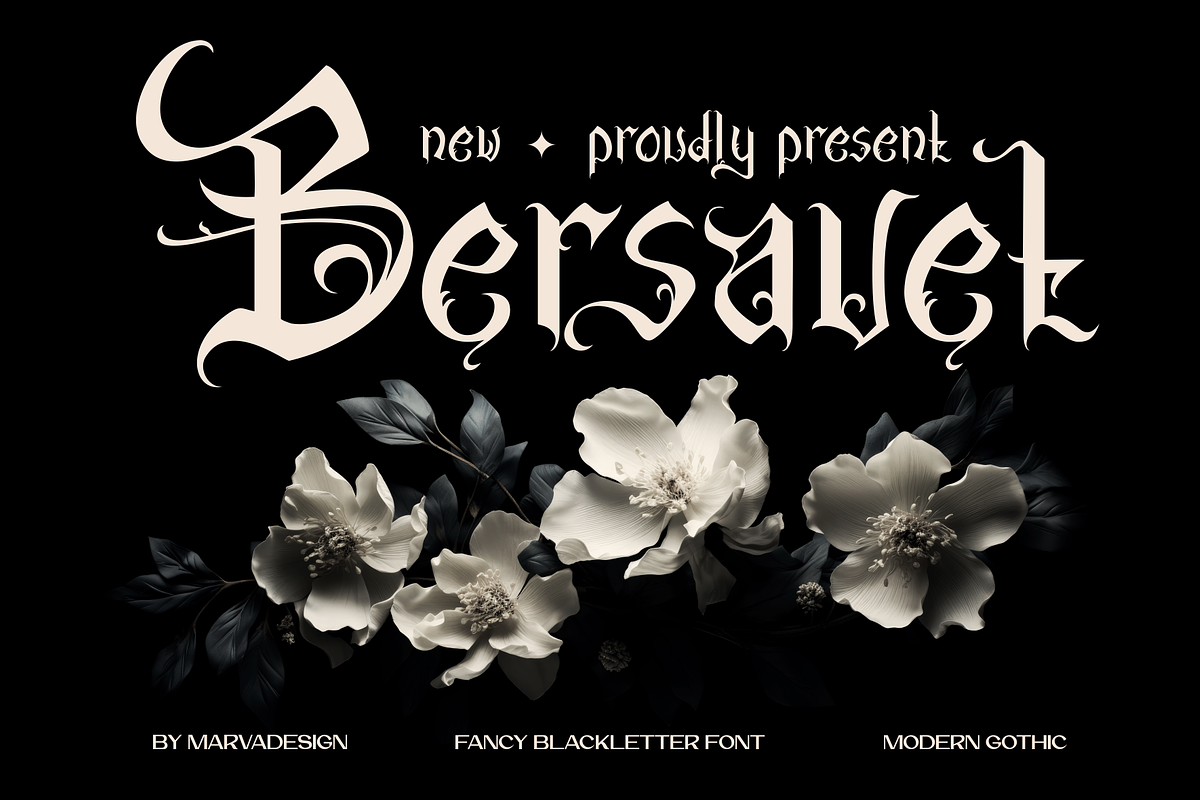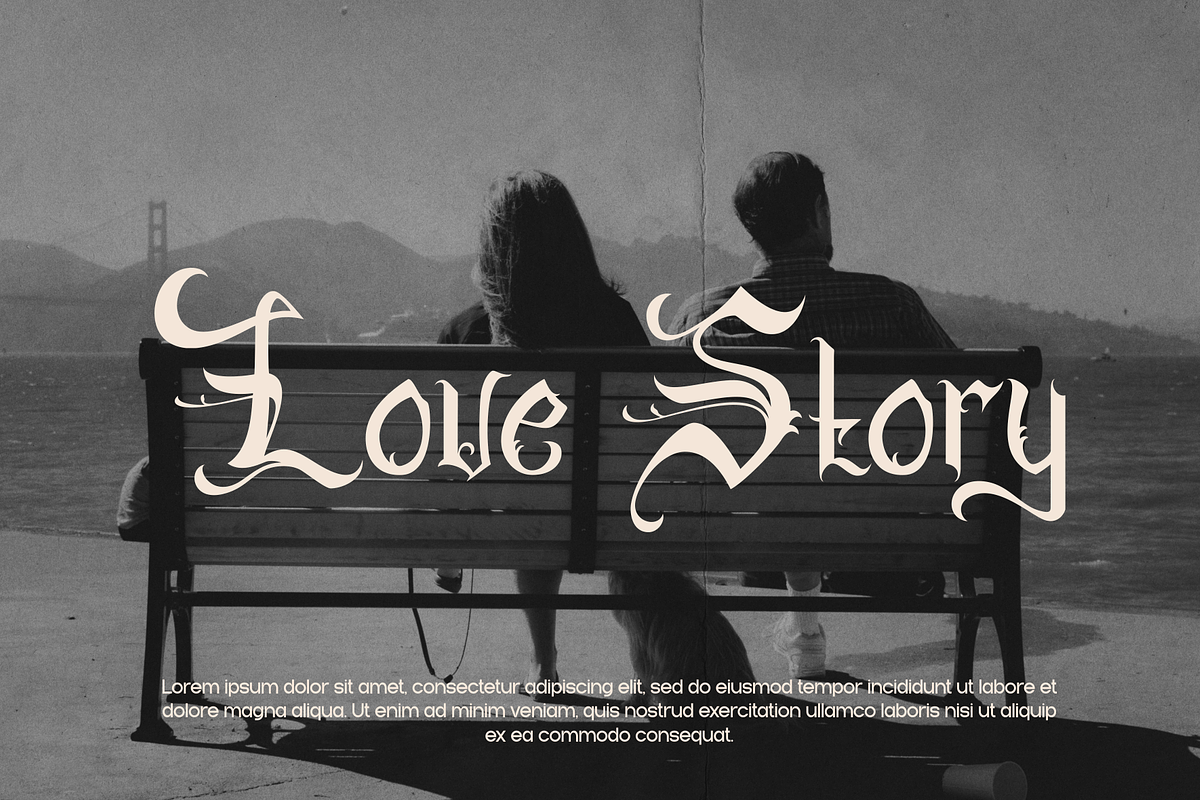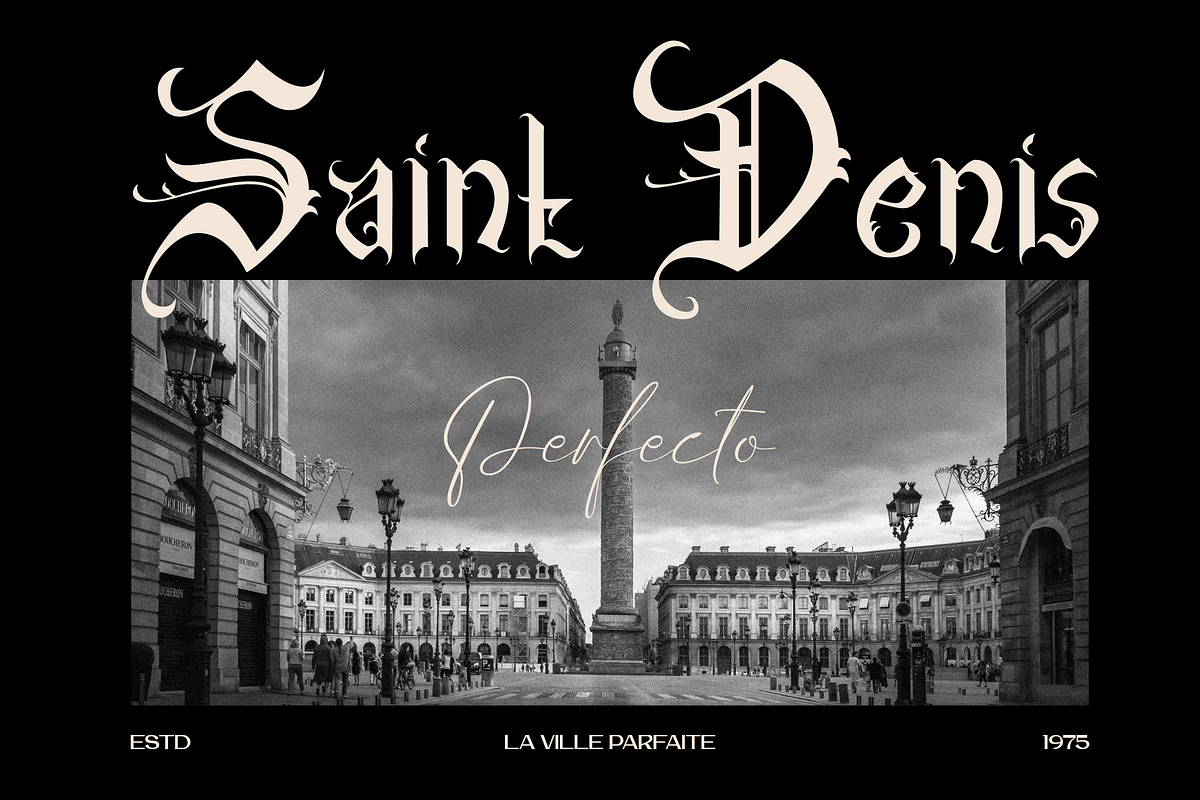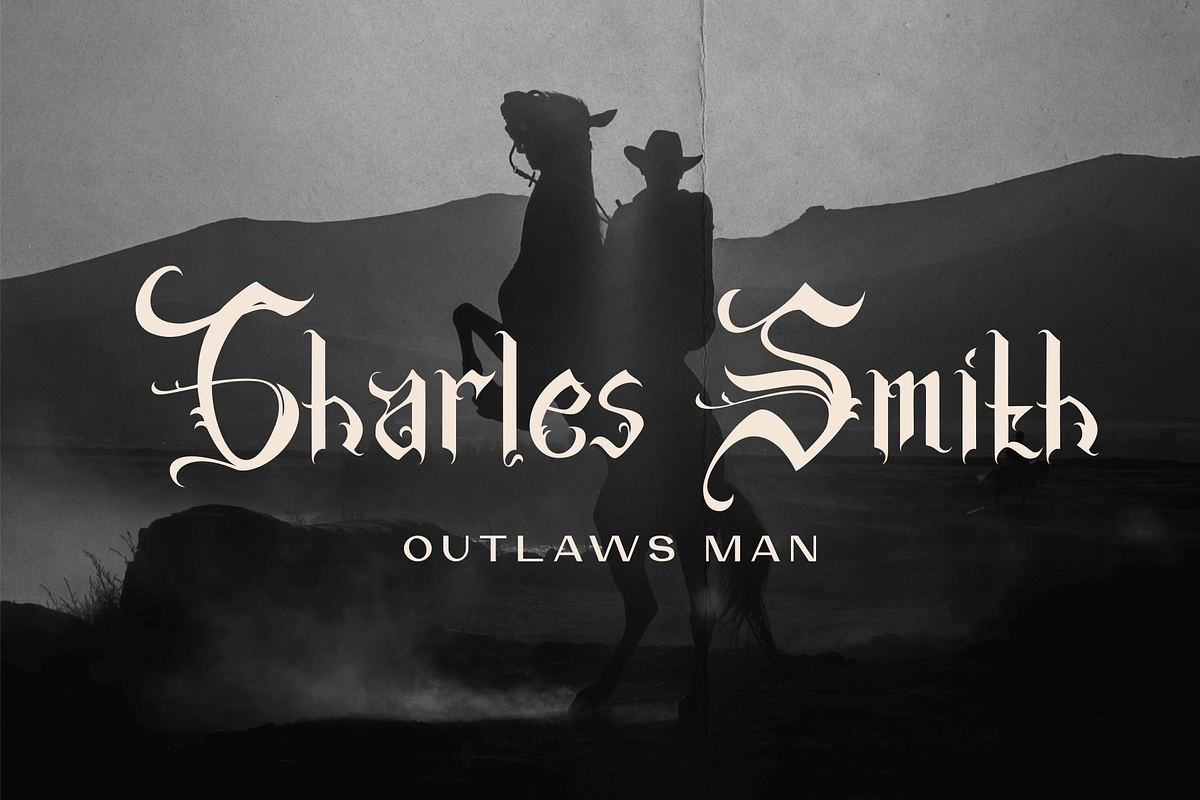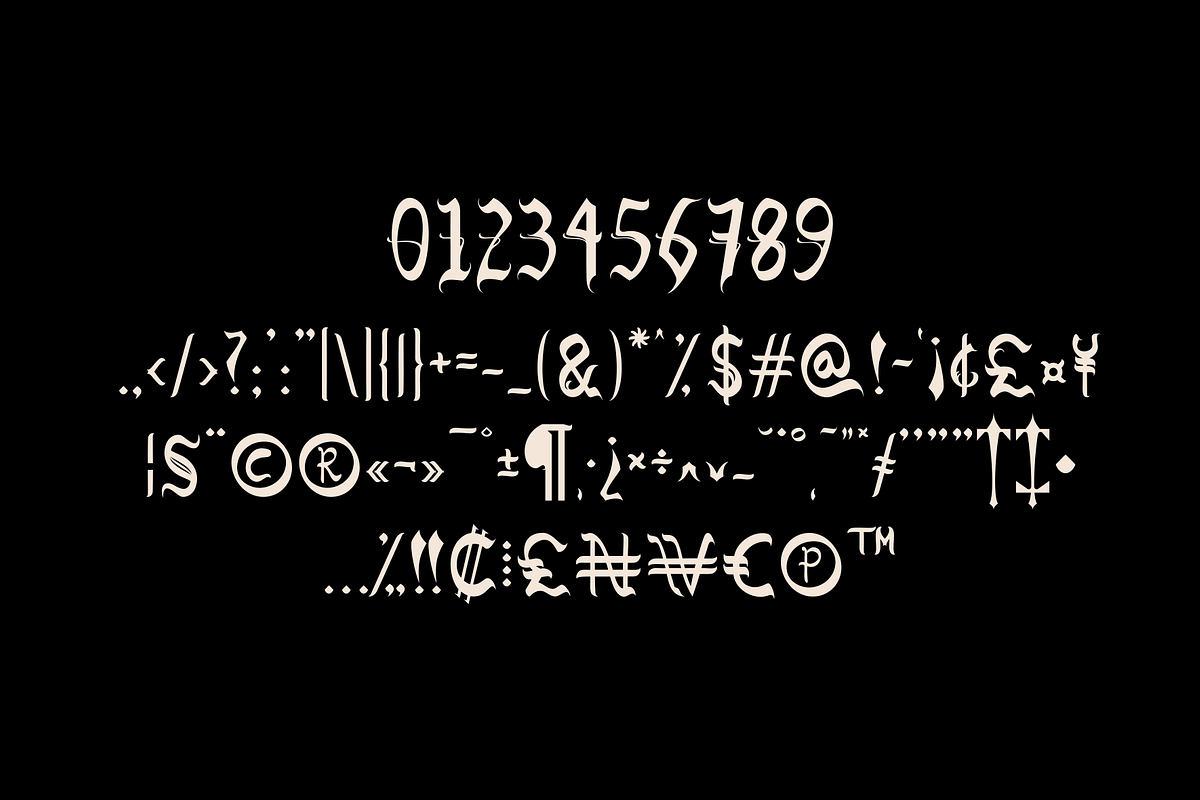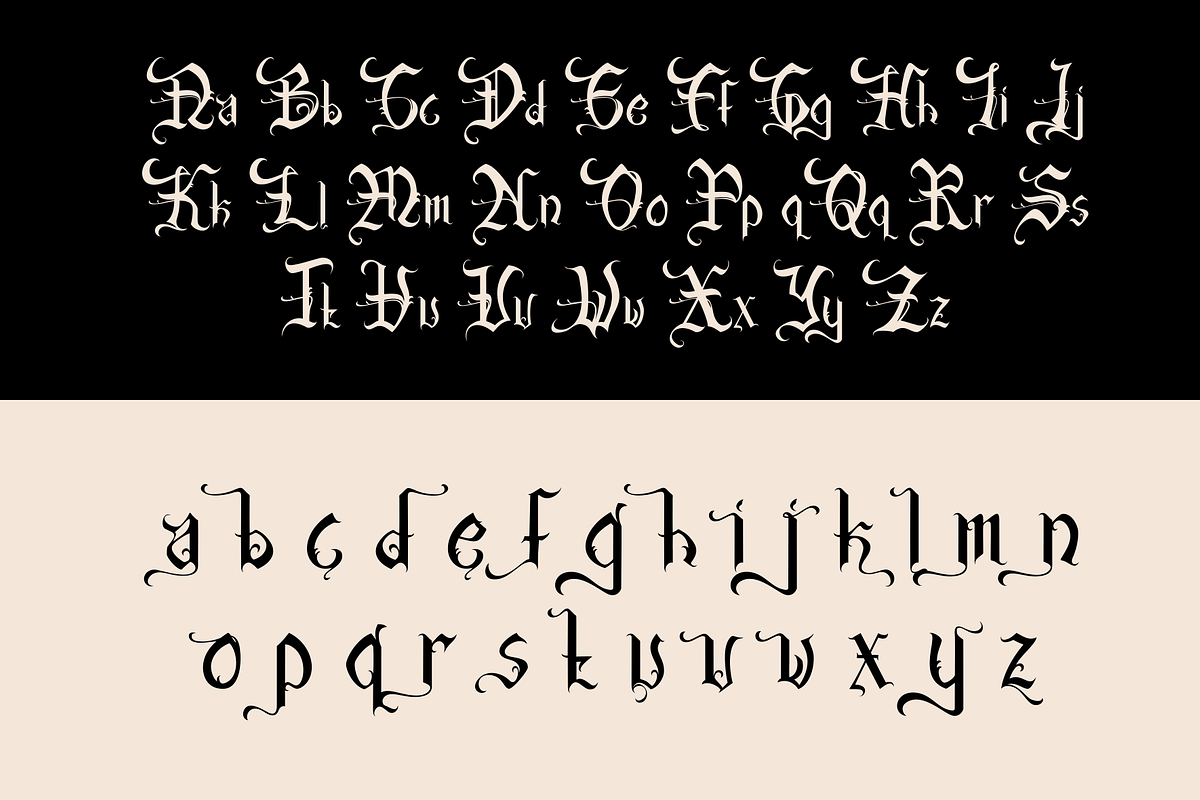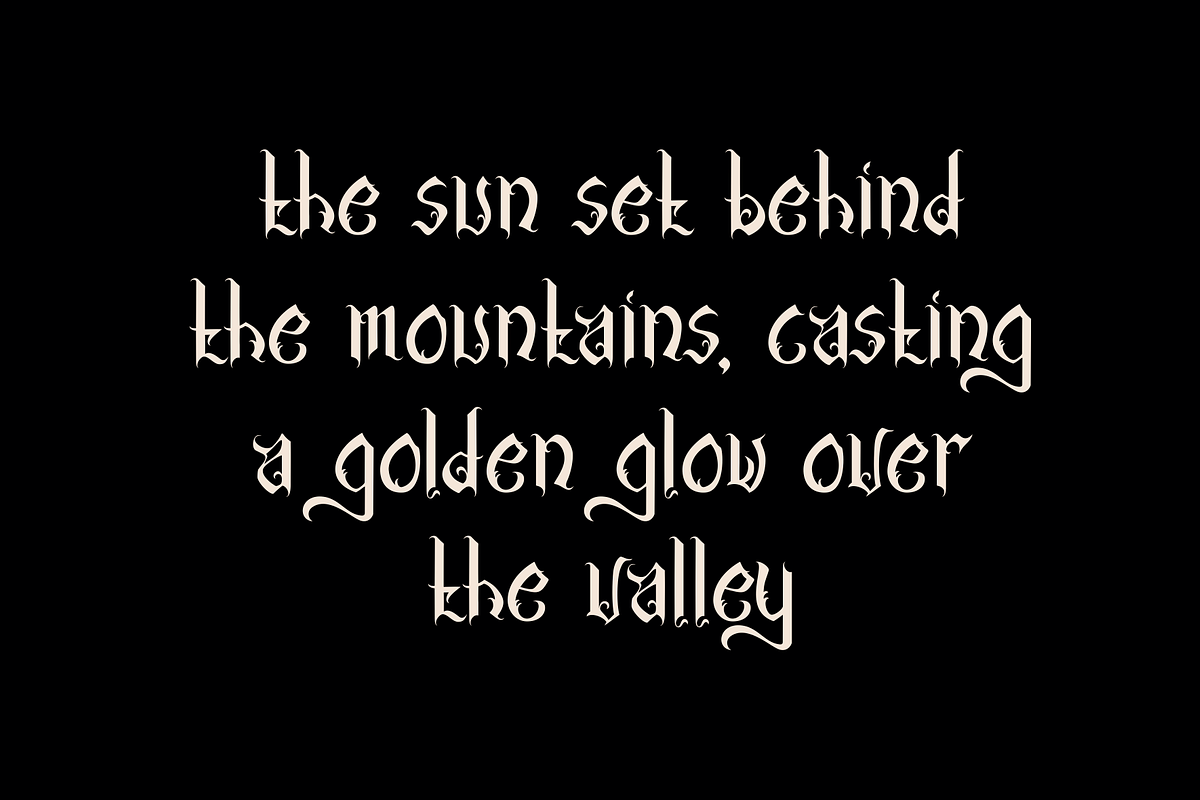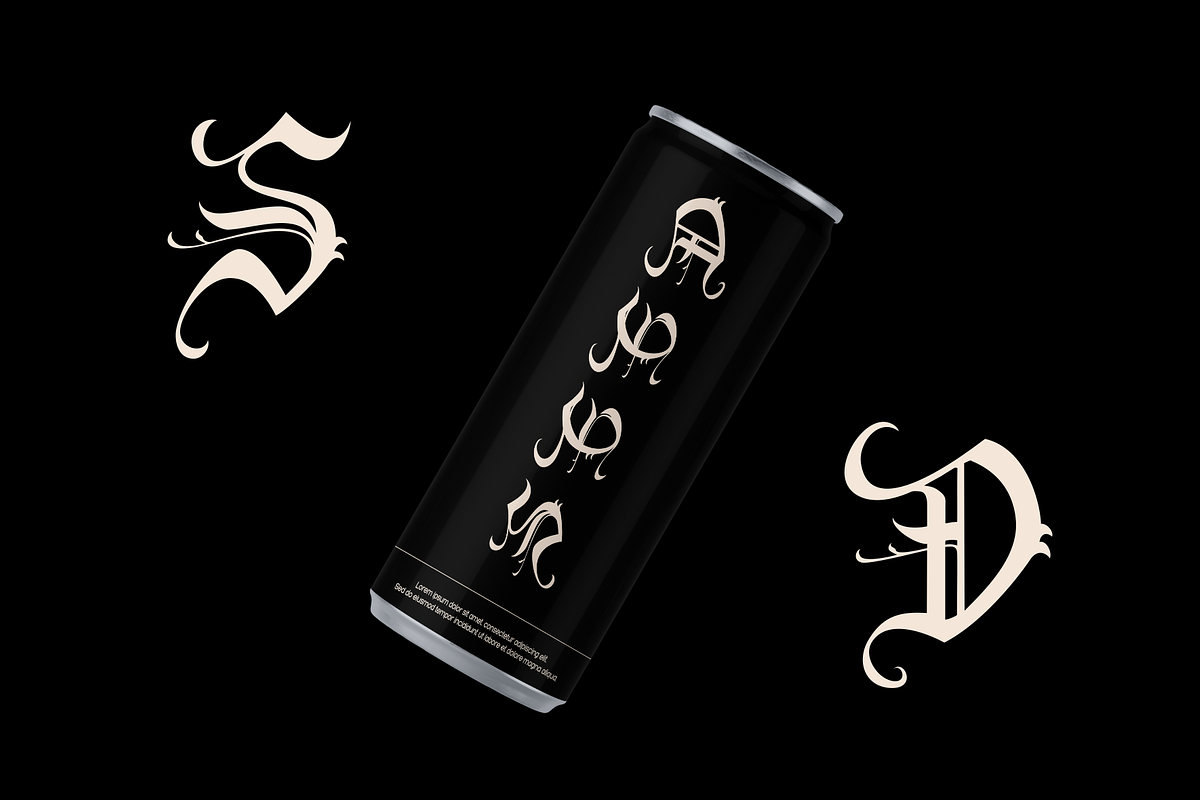
Bersavet
Introducing Bersavet Font is a stylish and decorative blackletter typeface with a distinct fancy theme. This font draws inspiration from traditional blackletter styles but incorporates a decorative flair that makes it particularly suitable for tattoo designs, branding, and other artistic applications. One of its defining features is the presence of alternative characters in the lowercase set, offering users additional versatility and creative freedom in their designs. The ornate details and bold strokes give Bersavet an edgy and impactful appearance, making it perfect for those seeking a strong, artistic typeface with a unique and expressive personality.